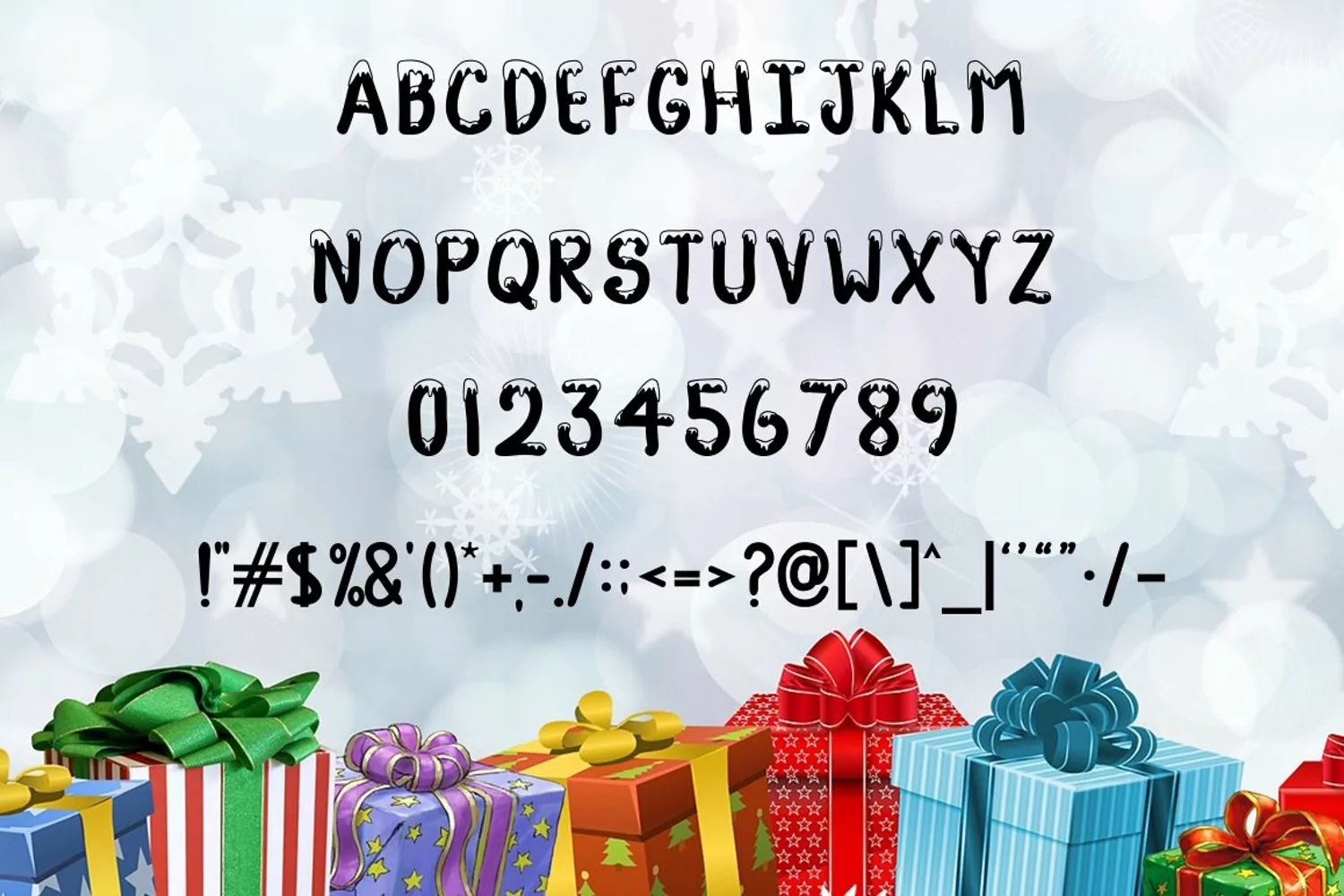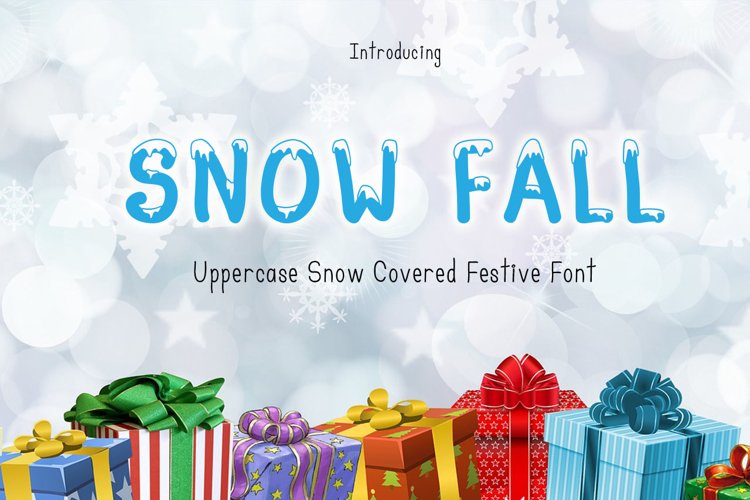
Snow Fall - Snow Covered Font
Snow Fall - Uppercase Festive Font
Snow Fall is a hand drawn snow covered uppercase font. A great font for Christmas designs.
** Font Includes **
- A - Z Uppercase snow covered font
- 0 - 9 snow covered numbers
- Punctuation (plain)
- The snow covered areas of the font are transparent with no white fill.
You can use layer styles to creat different effects to the font, as I have shown in the previews.
The Photoshop layer style "Outer glow" was used on the "Snow Fall" on the first preview page and the Merry Christmas preview.
A Photoshop Pressed Layer Style was used on the, quick Brown Fox preview.
The other previews had no layer styles added.